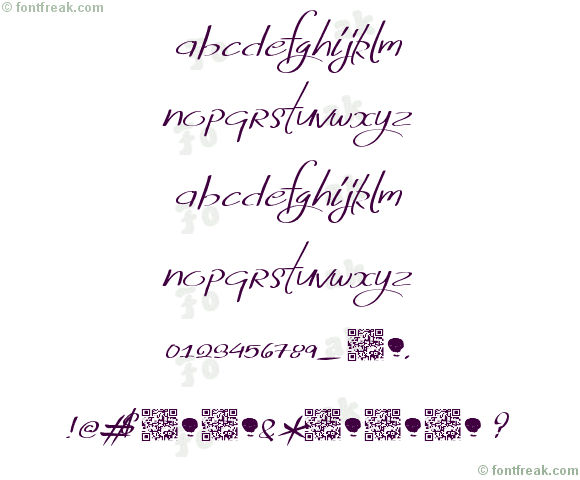
FreshlyThinking
FreshlyThinking by Xerographer Fonts is a beautifully crafted script font that exudes elegance and charm. Released in 2015, this font features a unique design characterized by its flowing, handwritten style, making it perfect for a range of creative applications. The strokes of FreshlyThinking are light and airy, with a moderate contrast that enhances its legibility while still maintaining a decorative flair. The spacing is thoughtfully designed, allowing for a seamless flow that captures the essence of fluid handwriting, making it both inviting and sophisticated.
This versatile font is particularly well-suited for various use cases. It shines in wedding invitations, where its romantic curves can add a personal touch to the most special occasions. Additionally, FreshlyThinking is ideal for crafting engaging restaurant menus, giving each dish a distinctive and appealing presentation. Graphic designers will find this font perfect for branding projects, particularly for businesses focused on lifestyle and artisanal products. Furthermore, it can elevate the aesthetics of greeting cards and stationery, making them feel unique and heartfelt.
What sets the FreshlyThinking font apart is its ability to balance elegance with approachability. It invites viewers to engage with the text while maintaining a professional appearance. The combination of its unique style and practical applications makes the FreshlyThinking font free download a must-have for anyone looking to infuse their designs with personality and charm.